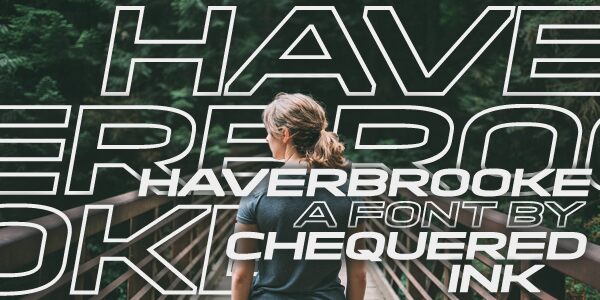
Haverbrooke Hollow
Haverbrooke Hollow is a stunning sans-serif font that boasts an expanded width and outlined feature. Created by font designer Allison James, this font family is perfect for a range of projects that require a bold and modern touch. With its spacious letters and clean lines, Haverbrooke Hollow will elevate your designs, from branding materials to social media graphics. Whether you're creating posters or web design layouts, this semi-bold typeface will make your text pop with style and sophistication. So why not give Haverbrooke Hollow a try today? You won't be disappointed!